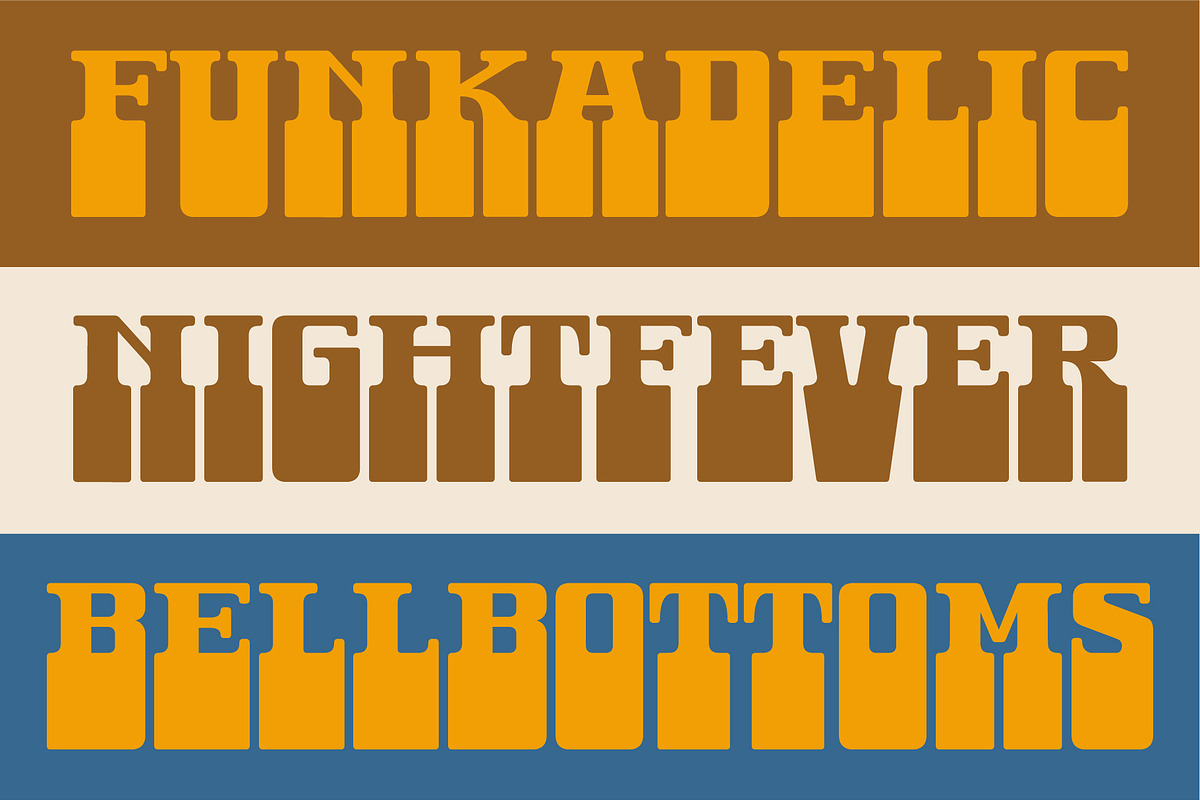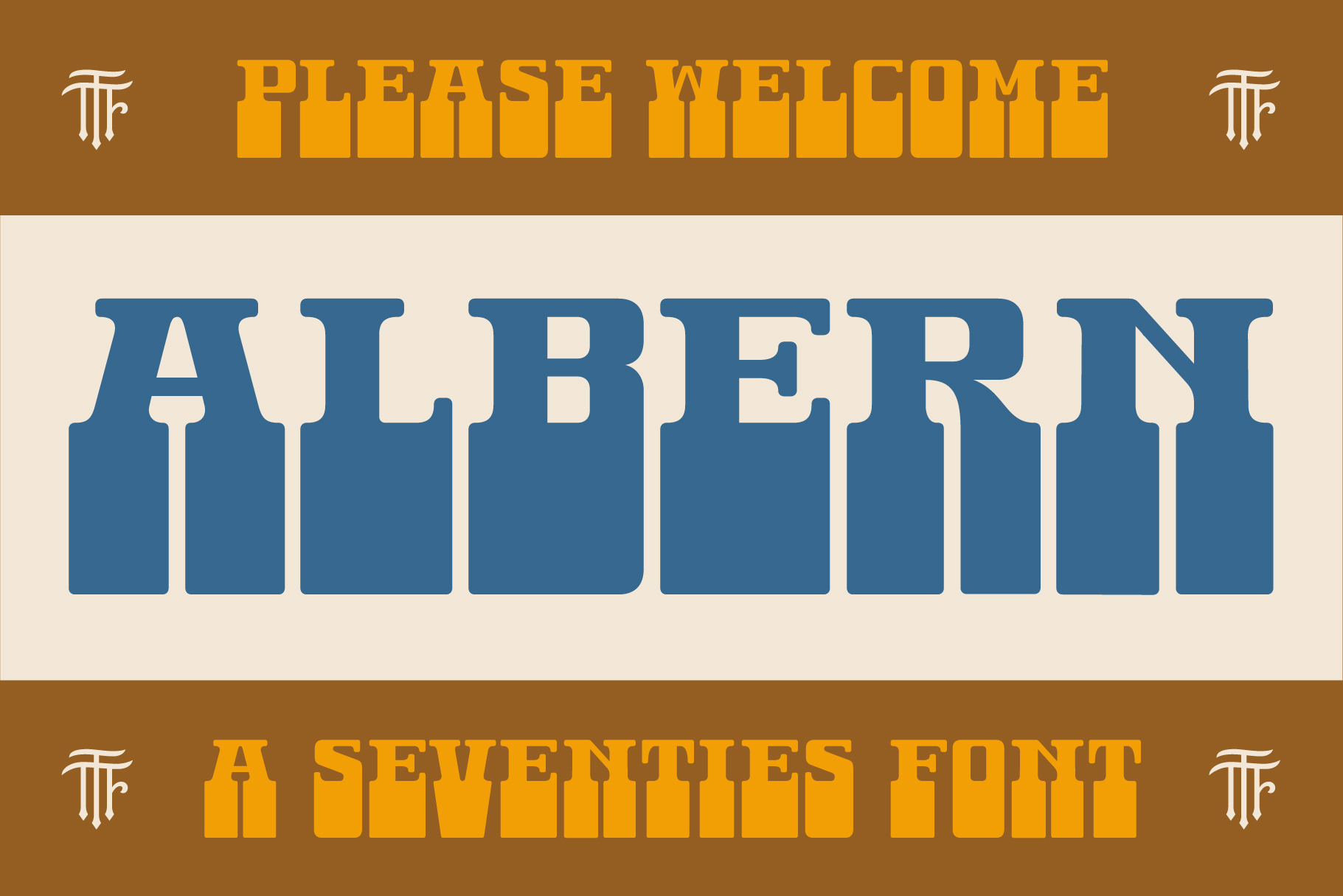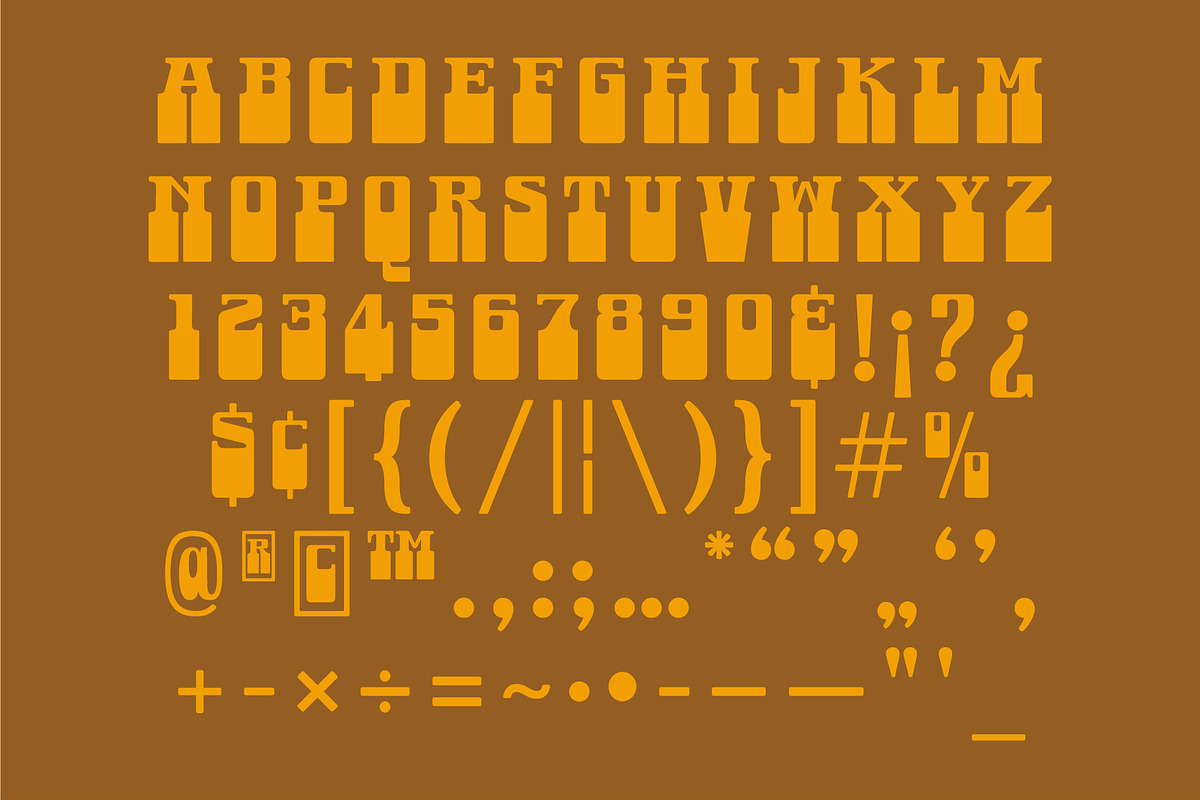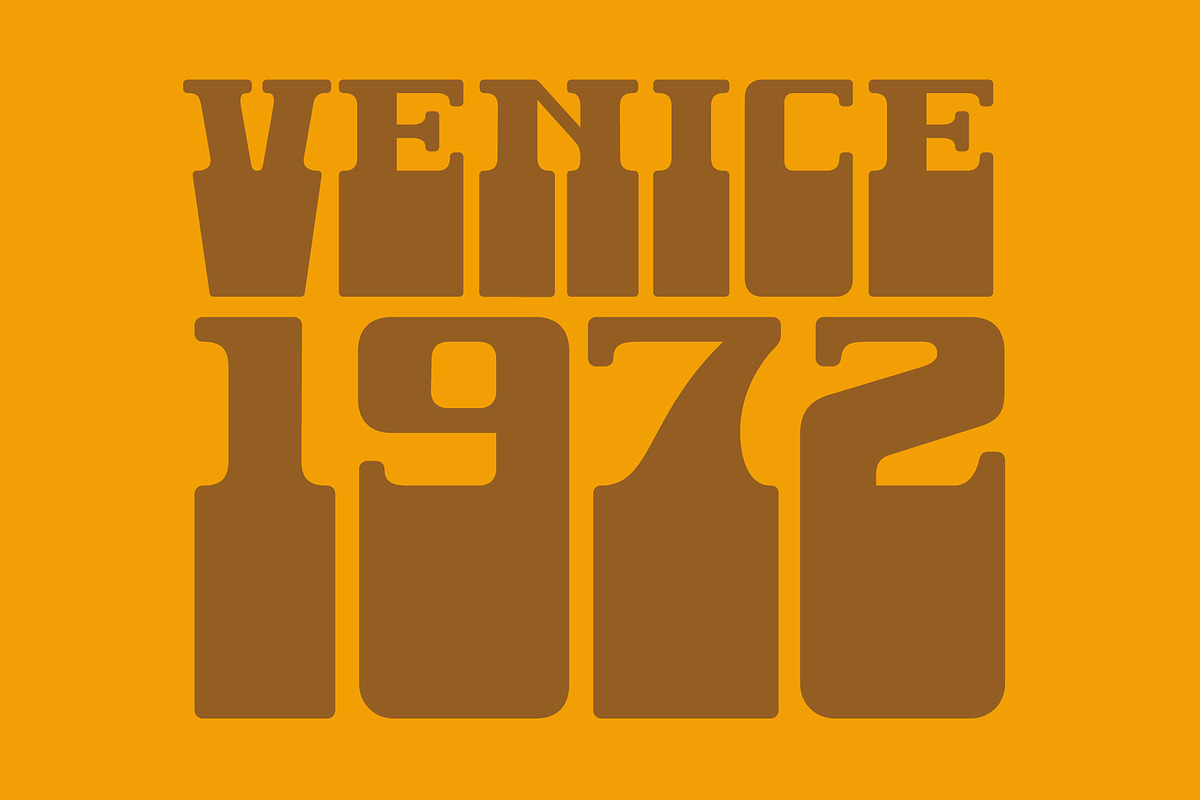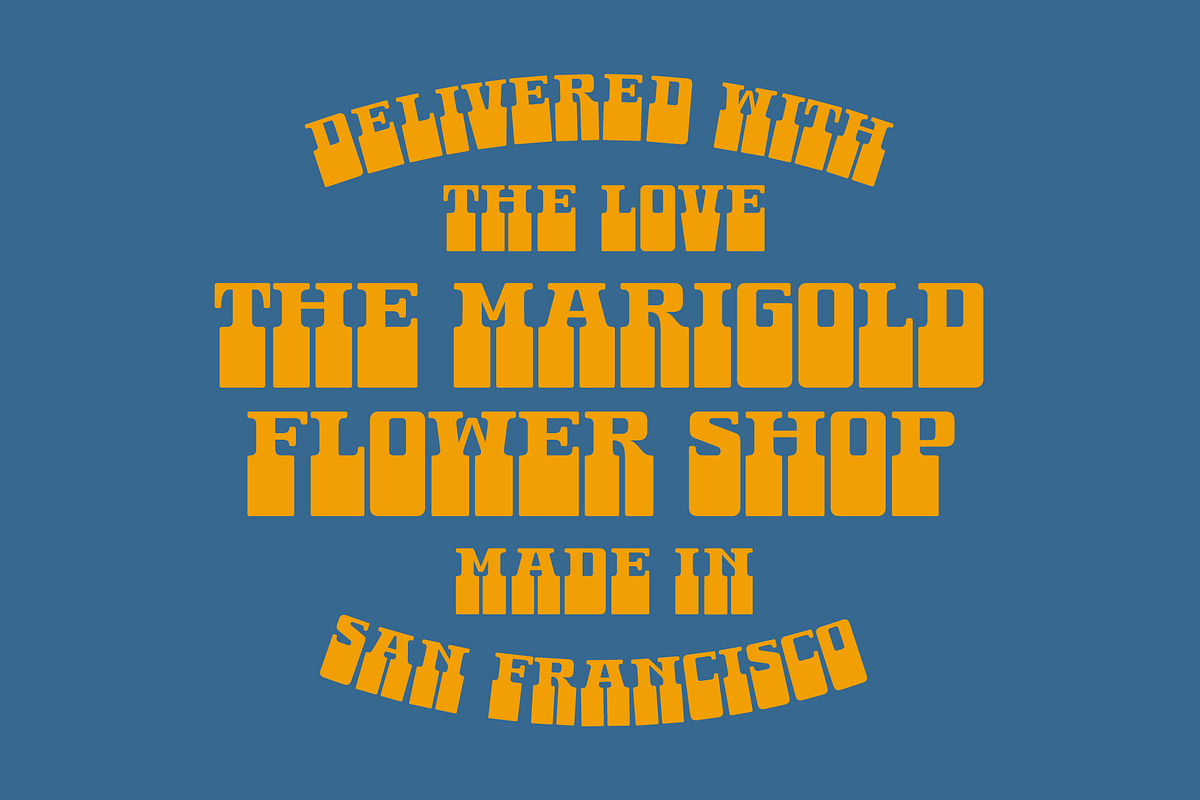
Albern - A Groovy 70s Font
Introducing Albern, a display face inspired by the funky forms of the 1970s. With influence from ITC Bottleneck designed by Tony Wenman, Albern features heavy bottom serifs while retaining legibility. It is a perfect laidback font ready to add some retro flavor to album covers, clothing, headlines, posters, movie titles, and more.